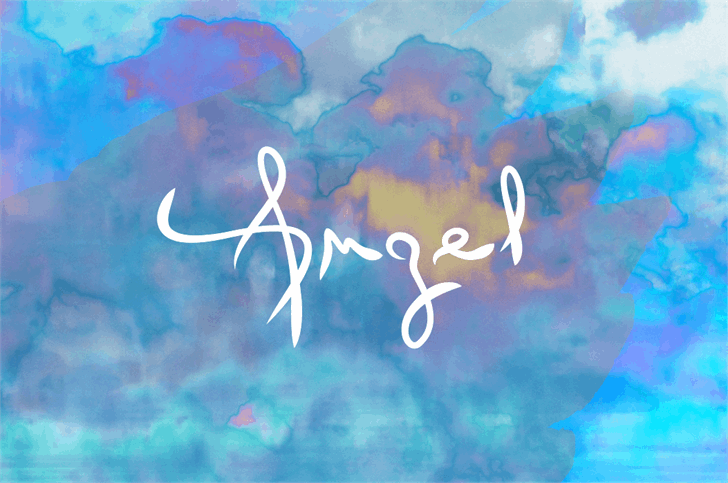
Free Angel Font
Free angel font for graphic designers that need to present their work in a professional way. This is a downloadable typeface file brought to you by Font Space. This is absolutely fancy font so you can easily make world-class designs.